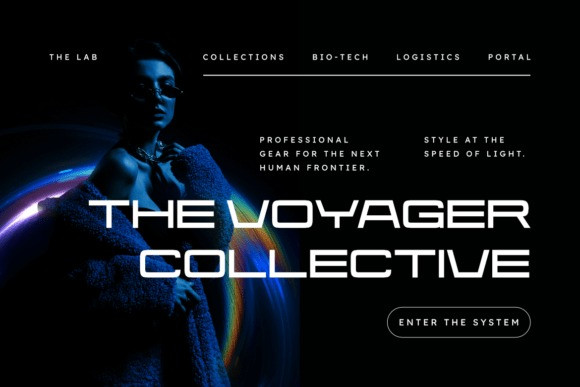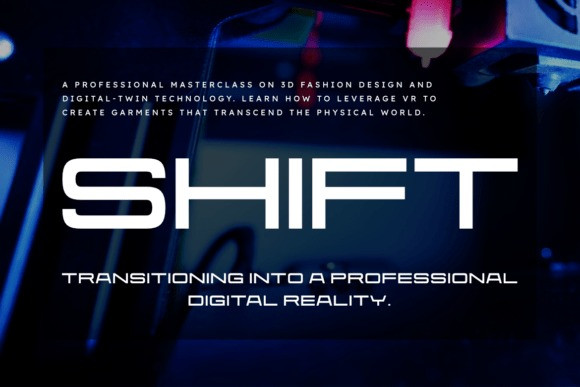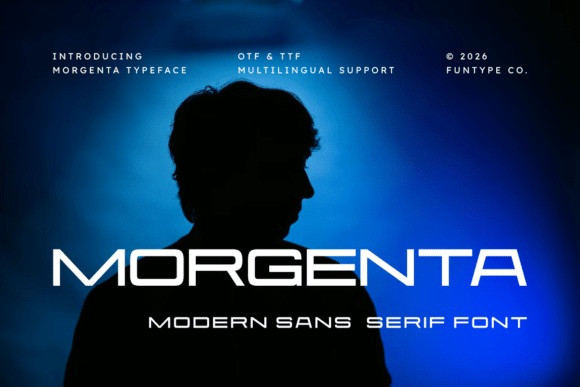
Morgenta Font
Morgenta Font is a bold and powerful modern sans serif font designed for high-impact and futuristic typography. With its refined wide structure and clean geometric lines, this font is perfect for strong headlines, professional tech logos, industrial branding, and high-impact digital posters. Its confident and innovative design gives your visuals a striking, professional, and advanced look. Provided in OTF and TTF formats with multilingual support for maximum compatibility across all design platforms.